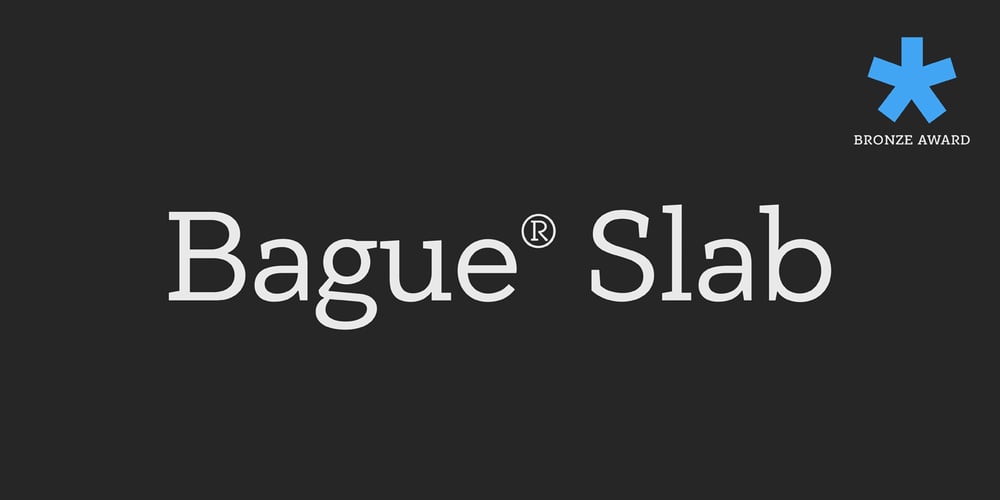
PF Bague Slab Pro
PF Bague Slab Pro font
PF Bague Slab Pro Font Family was designed by Panos Vassiliou and published by Parachute. PF Bague Slab Pro contains 18 styles and family package options. PF Bague Slab Pro draws its inspiration from early 20th century slabs and was designed as a companion to Bague Sans, a versatile monoline typeface with a distinct and eye-catching personality. Following its predecessor’s design guidelines, it overcomes the monotonous and mechanical rigidity of early geometrics by introducing subtle variations in stroke width and semi-wedge serifs rather than square slabs. These striking serifs, along with a mixture of attractive letterforms, exude a strong, modern and energetic personality at display sizes. On the other hand, at small sizes these distinct characteristics become subtle and the simplistic geometric personality of the typeface comes in place to offer a highly readable text. Bague Slab Pro is a very clean and legible typeface with a warm and well-balanced texture which is ideal for editorial design, branding and corporate identity. This superfamily includes 18 weights from Hairline to Ultra Black with a consistent and well-refined structure. The italics are slightly narrower than the romans with cursive characteristics. Each style consists of 718 glyphs with 13 opentype features and an extended set of characters which supports simultaneously Latin, Cyrillic and Greek. PDF Specimen Bague Slab Pro on Behance